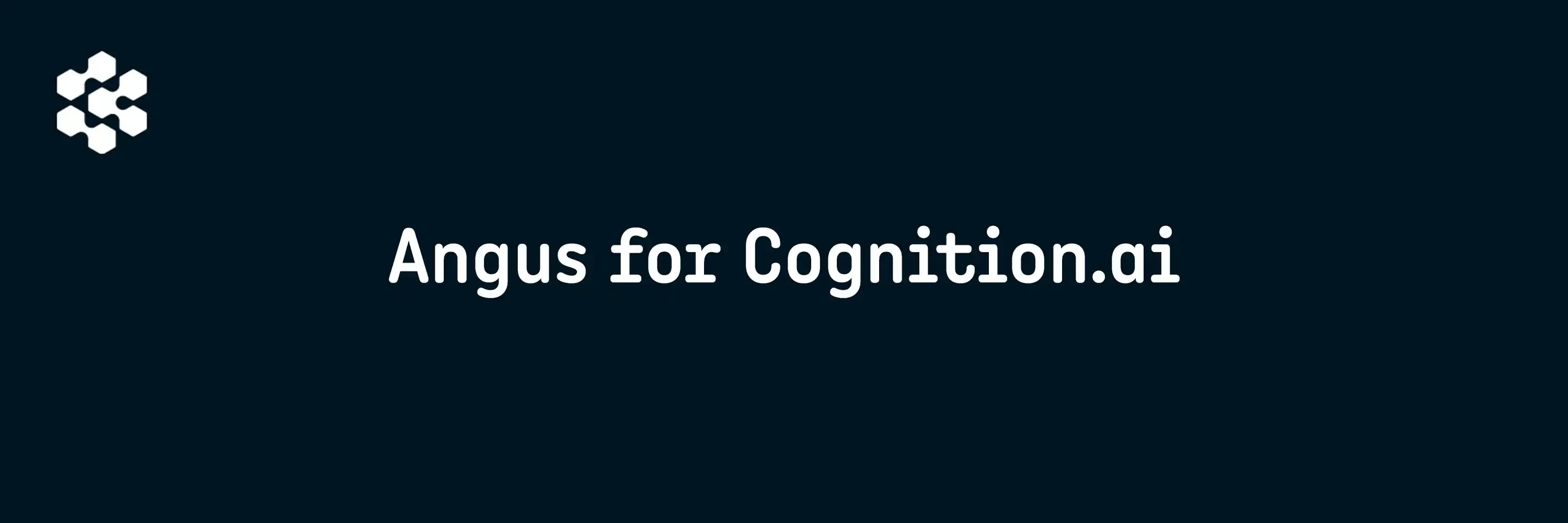
Angus for Cognition.ai
The Perfect Typeface for Cognition.ai's Cutting-Edge Online Presence
When Cognition.ai, a pioneering company in the field of artificial intelligence, sought to establish a distinctive and forward-thinking brand identity online, they chose the Angus font. This decision was driven by Angus’s unique blend of modernity, sophistication, and clarity, perfectly aligning with Cognition.ai’s innovative spirit and technological excellence.
Why Angus?
Multiplex Design: One of the standout features of Angus is its multiplex design. This ensures the font maintains a constant width across different weights, preventing text reflow when the weight changes. This characteristic is invaluable for maintaining design consistency and layout integrity across various digital platforms.
Monospace Aesthetic: Angus’s appearance is reminiscent of monospace fonts, often associated with coding and technology. However, unlike traditional monospace fonts, Angus is proportional, offering greater legibility and a more refined look. This combination of a technical aesthetic with practical readability is ideal for a tech-centric brand like Cognition.ai.
Modern Elegance: Characterized by its sleek lines and contemporary design, Angus is an ideal match for a company at the forefront of AI technology. Its clean and refined aesthetic reflects Cognition.ai’s commitment to advanced, cutting-edge solutions.
Readability: In the tech industry, where clarity and precision are paramount, Angus excels with its excellent readability. Whether in large headlines or smaller body text, Angus ensures that information is communicated effectively and efficiently, resonating well with Cognition.ai’s online audience.
Professionalism with Personality: Angus strikes a perfect balance between professionalism and personality. Its strong, confident lines convey authority and reliability, while subtle design nuances add a touch of uniqueness and character. This mirrors Cognition.ai’s brand ethos of being a trustworthy, yet innovative leader in AI.
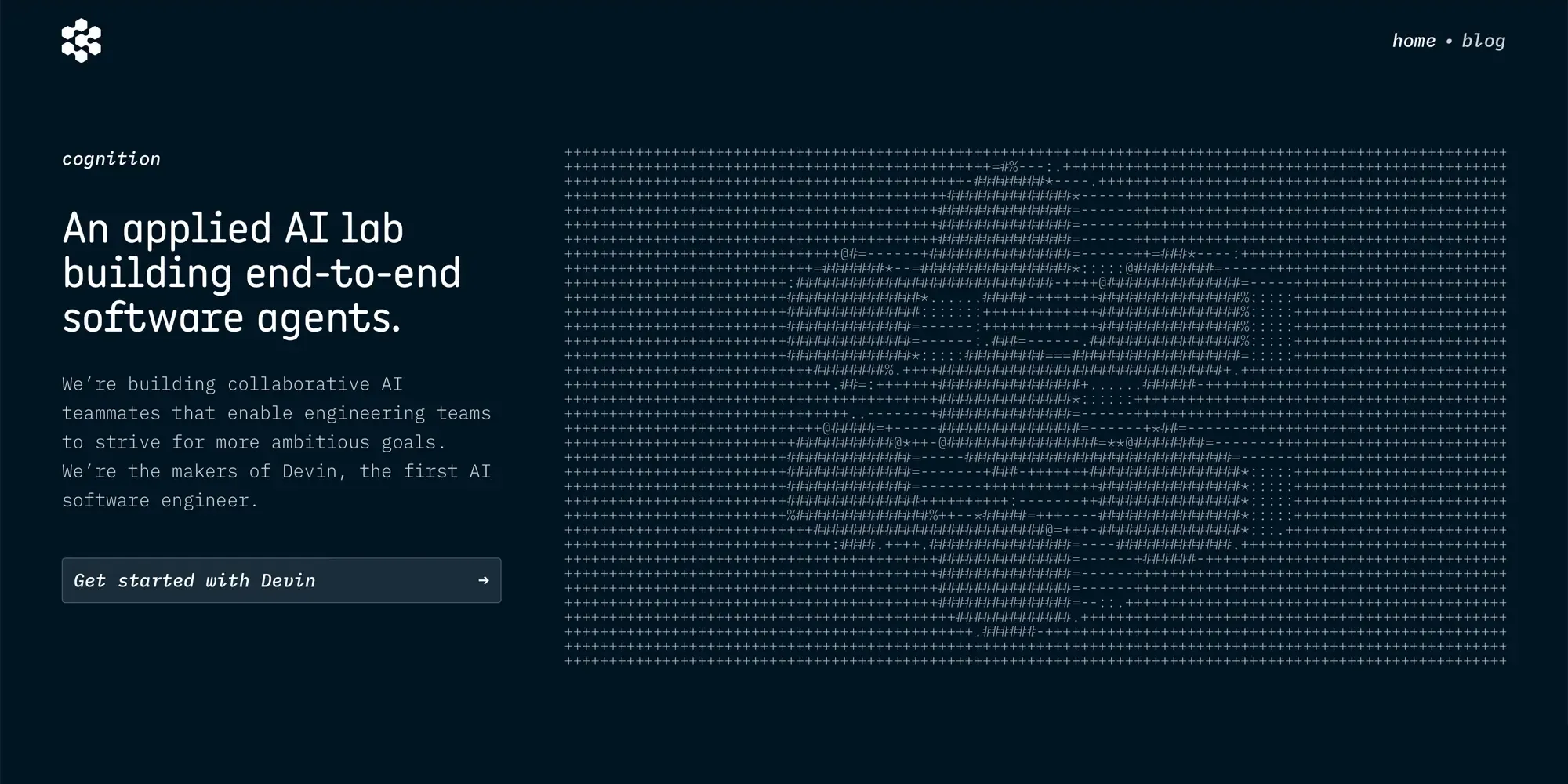
Angus in Action Online
The Perfect Typeface for Cognition.ai’s Cutting-Edge Online Presence
Cognition.ai has effectively utilized the Angus font to enhance its online presence. Here’s how Angus contributes to their digital brand identity:
Website: The Angus font provides a streamlined, user-friendly experience on the Cognition.ai website. Its clear legibility and stylish appearance help to present complex information in an accessible and engaging manner. The constant width feature ensures that the website design remains consistent and visually appealing, regardless of font weight changes.
Online Marketing Materials: From social media graphics to email newsletters, Angus ensures that Cognition.ai’s messaging is impactful and memorable. Its contemporary design captures the essence of Cognition.ai’s futuristic approach to AI, making a strong impression on their digital audience.
Conclusion
The choice of the Angus Typeface for the company Cognition.ai is a perfect fit. Angus’s multiplex design, monospace aesthetic, modern elegance, and superior readability makes it the perfect match for dynamic and innovative online presence of Cognition.ai.
We are proud to see Angus play a pivotal role in representing the cutting-edge advancements and sophisticated technology that define Cognition.ai.